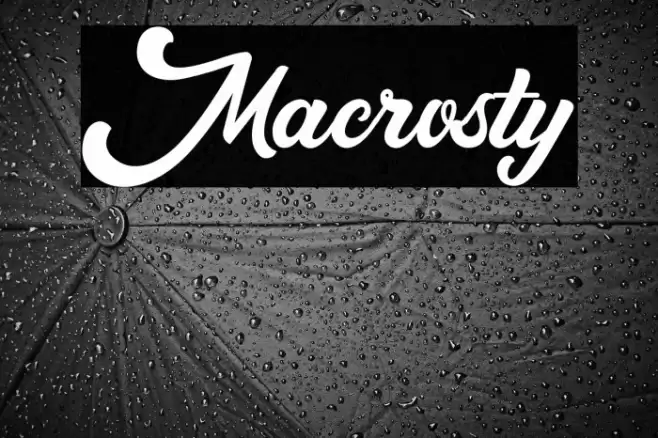
Macrosty Font
Macrosty Description
This font features a flowing, cursive style with elegant curves and a handwritten aesthetic. The uppercase letters are ornate, with flourishes that add a touch of sophistication. The lowercase letters maintain a consistent style, offering a smooth and connected appearance. The numerals and special characters are designed to complement the overall script style, ensuring a cohesive look across all text. This font's design is both artistic and functional, making it suitable for a variety of creative applications.
A flowing, cursive font with elegant curves and a handwritten aesthetic from Regular fonts.